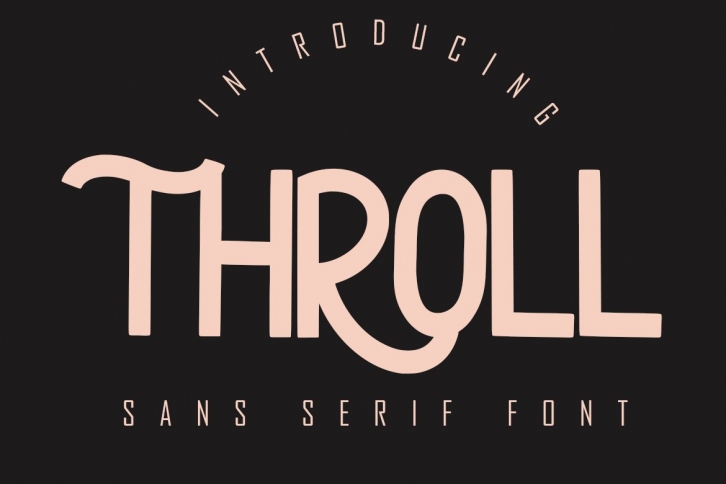
THROLL Modern Sans Serif is a trendy and unique font with an authentic style. It was designed by SkiillerStudio and it's a great choice for creative people who need such a font. It was released on February 3, 2021 and the file size is 11.45 MB. THROLL Modern Sans Serif will add an organic vibe to any design idea!